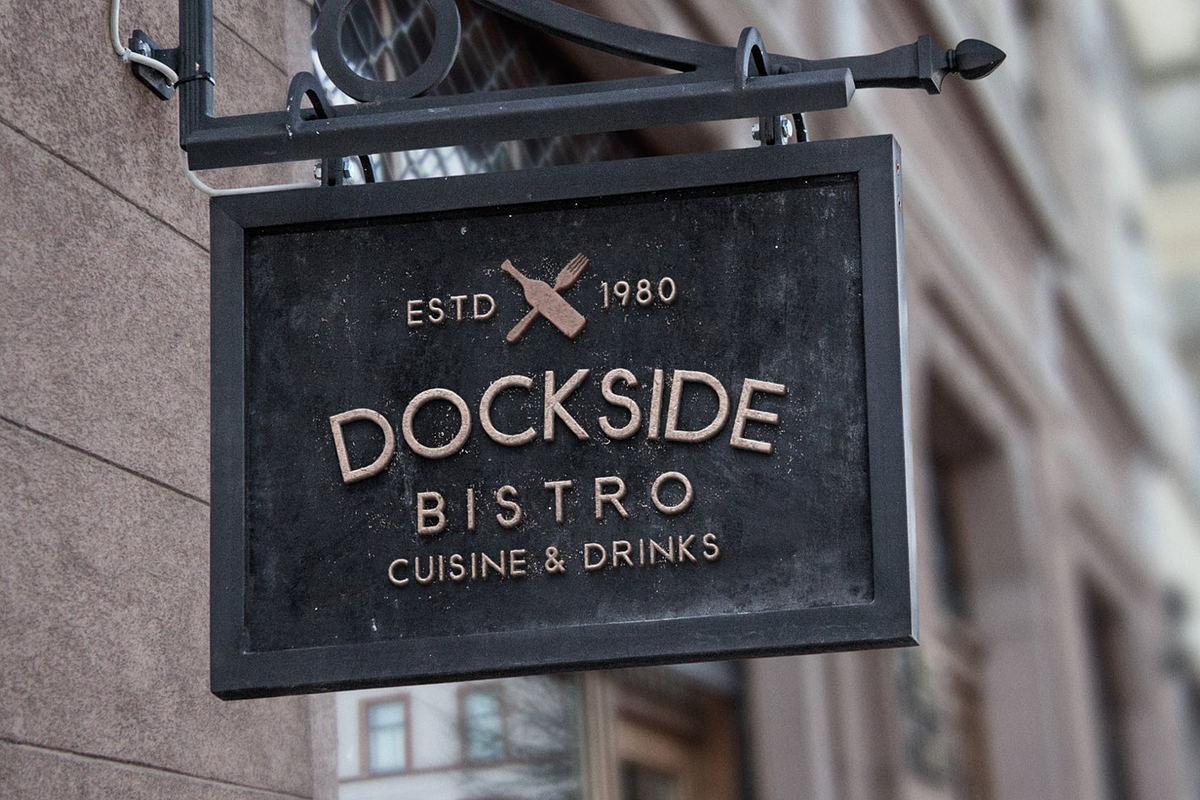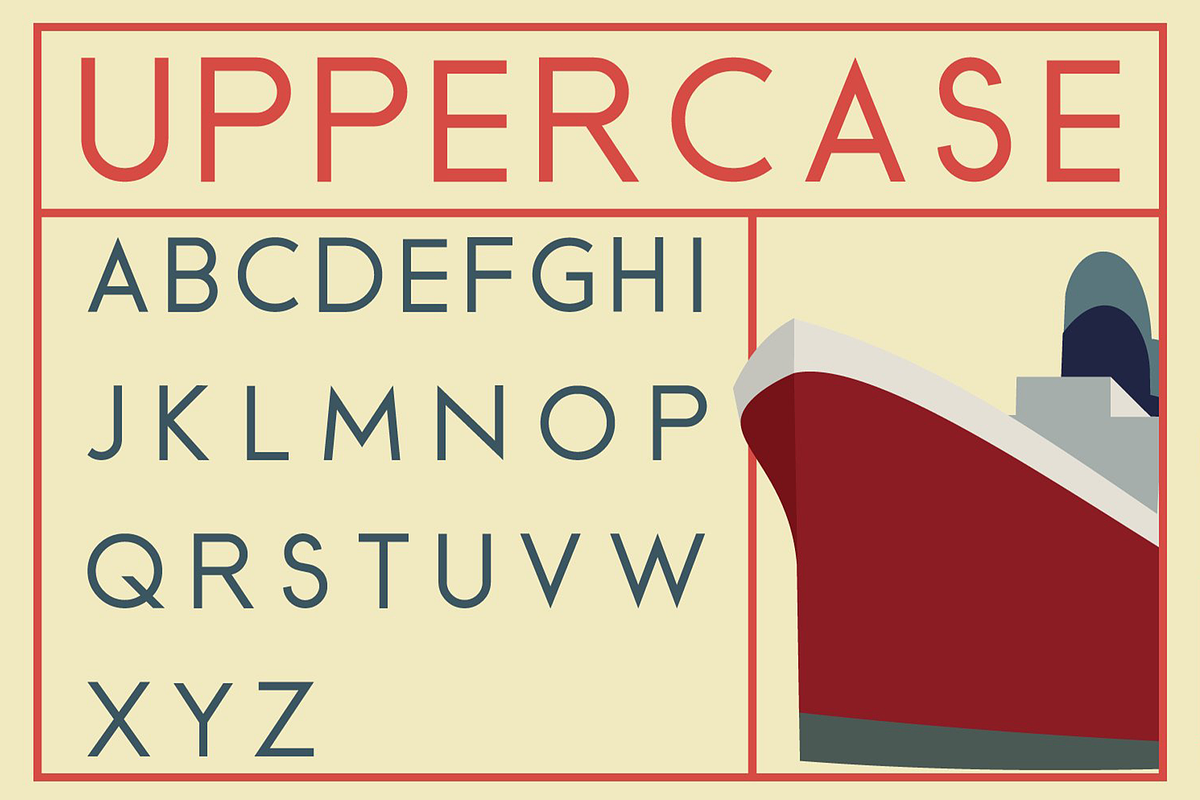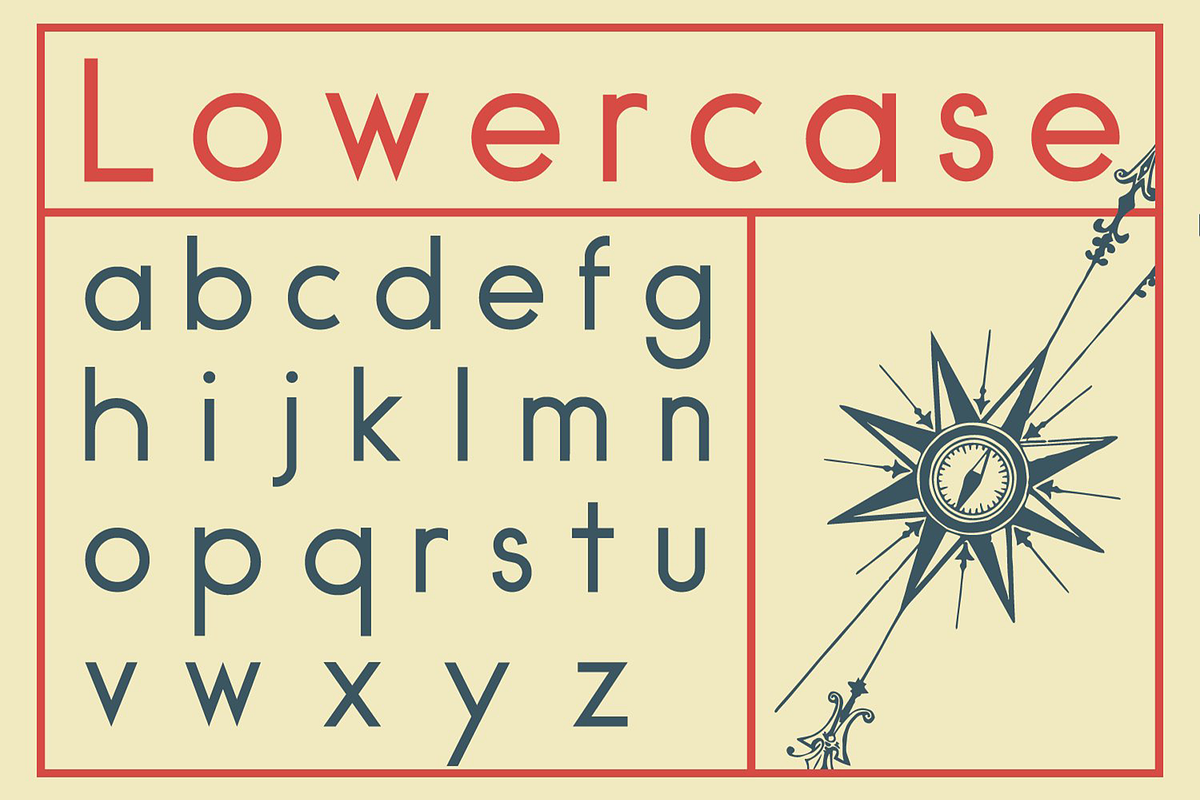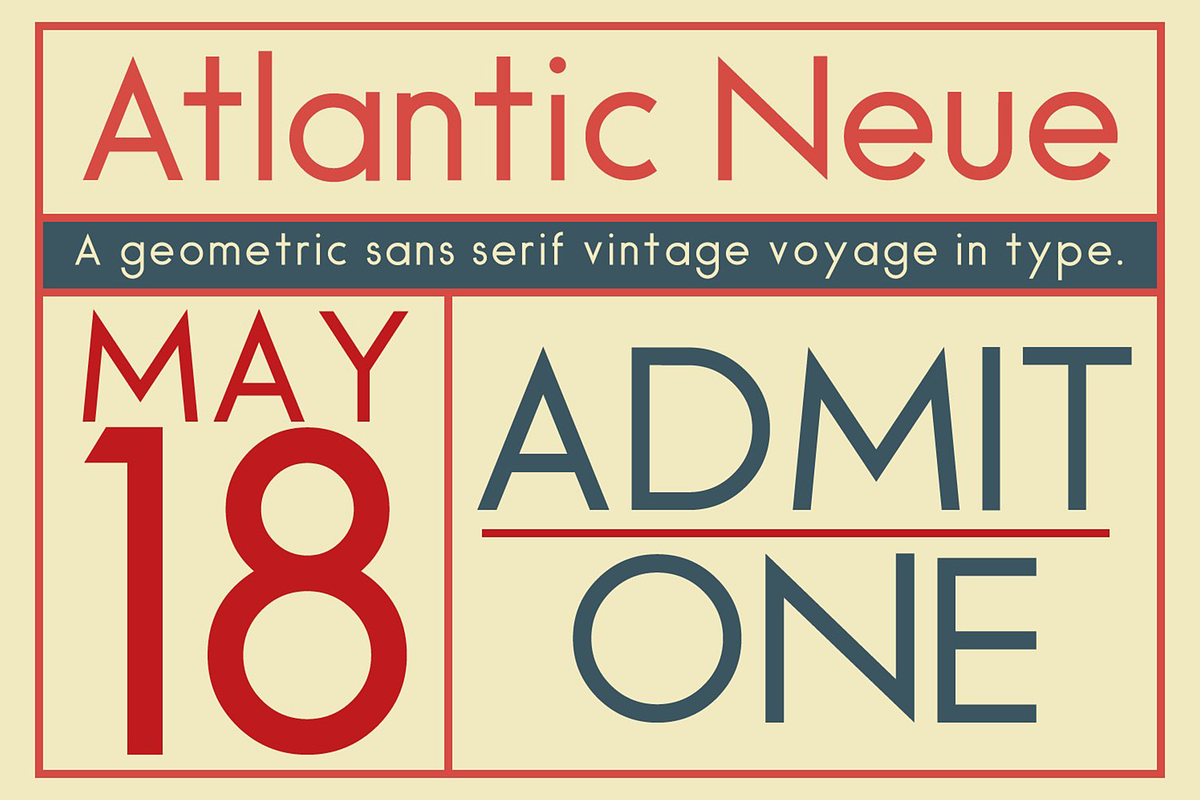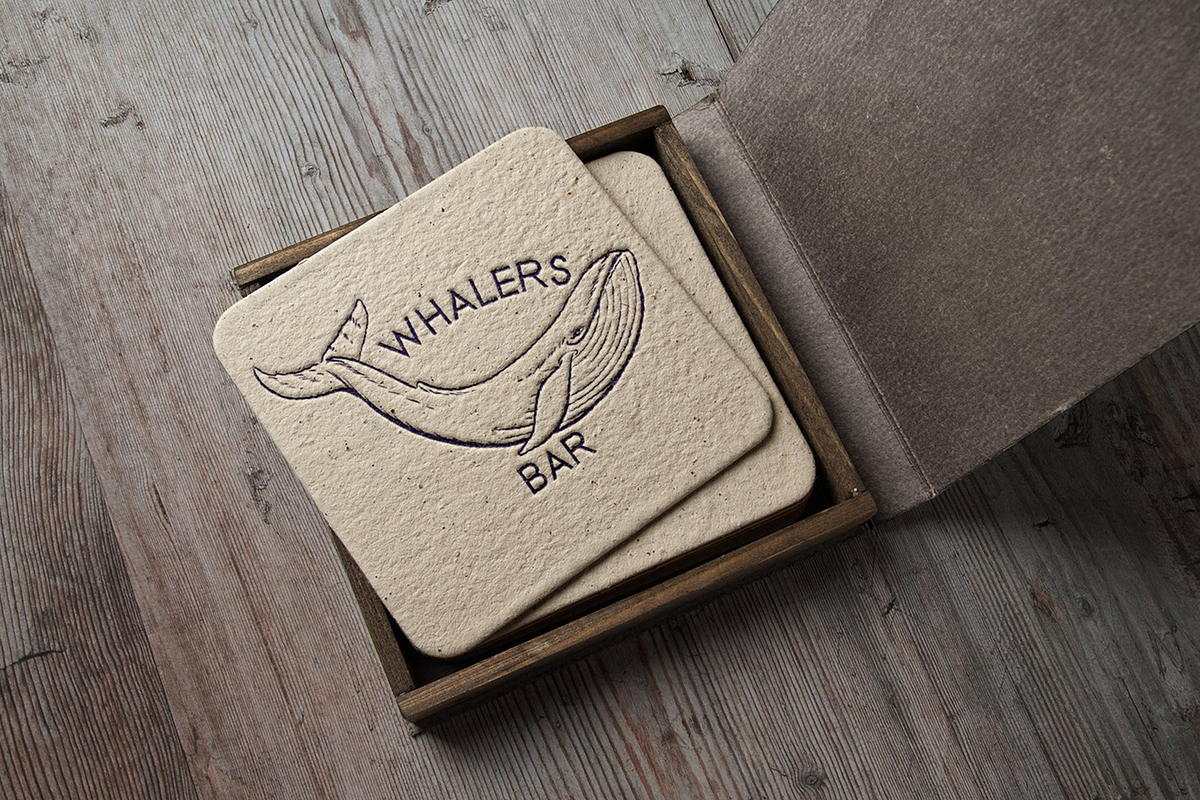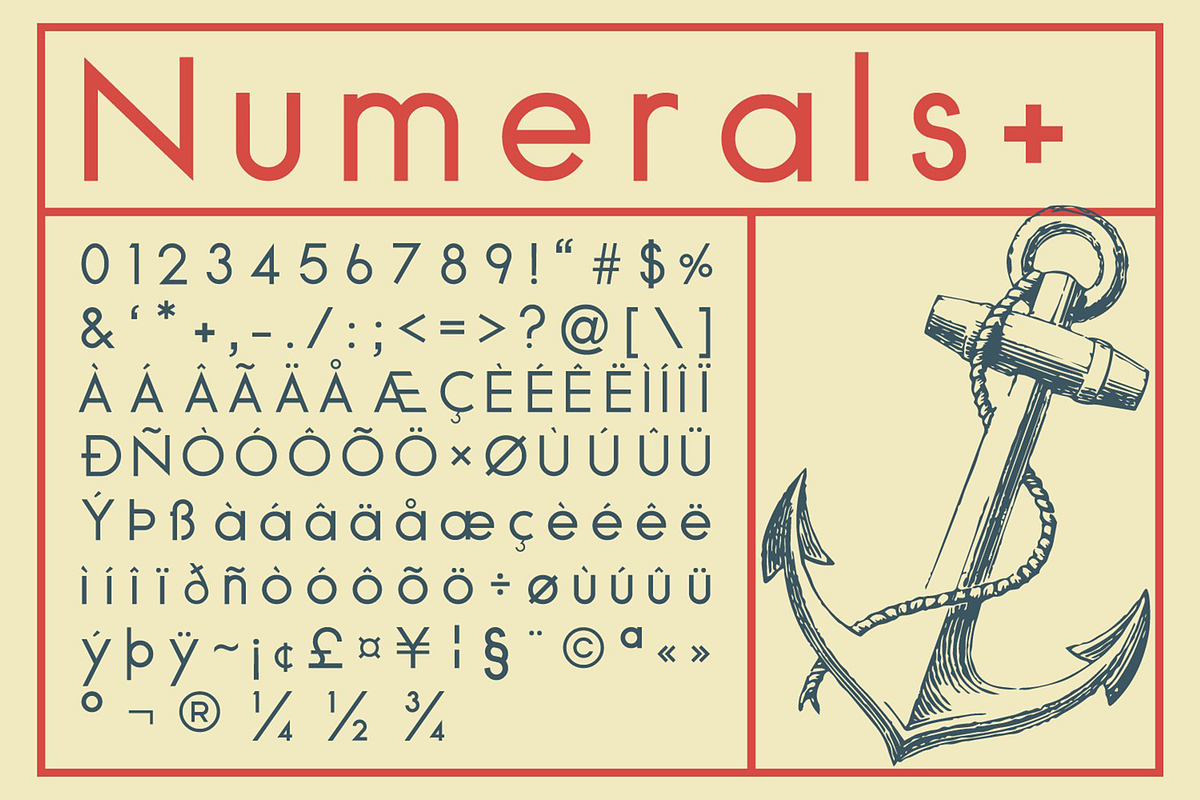
Atlantic Neue - Geometric Sans font
Atlantic Neue is a versatile geometric sans serif font inspired by Futura and Gotham. While this typeface has a strong, modern, fashion-forward design, it is also sentimental with a hint of the Art Deco movement lingering in its geometric forms and tall ascenders. This typeface is perfect for branding, posters, advertising material and other display type uses. Pair with a serif or a script typeface for a nice contrast.
Use it in your logo, website, magazine, or on social media. Use wide tracking and uppercase for a clean modern look. Atlantic Neue is a great all-rounder type font to have in your design arsenal.